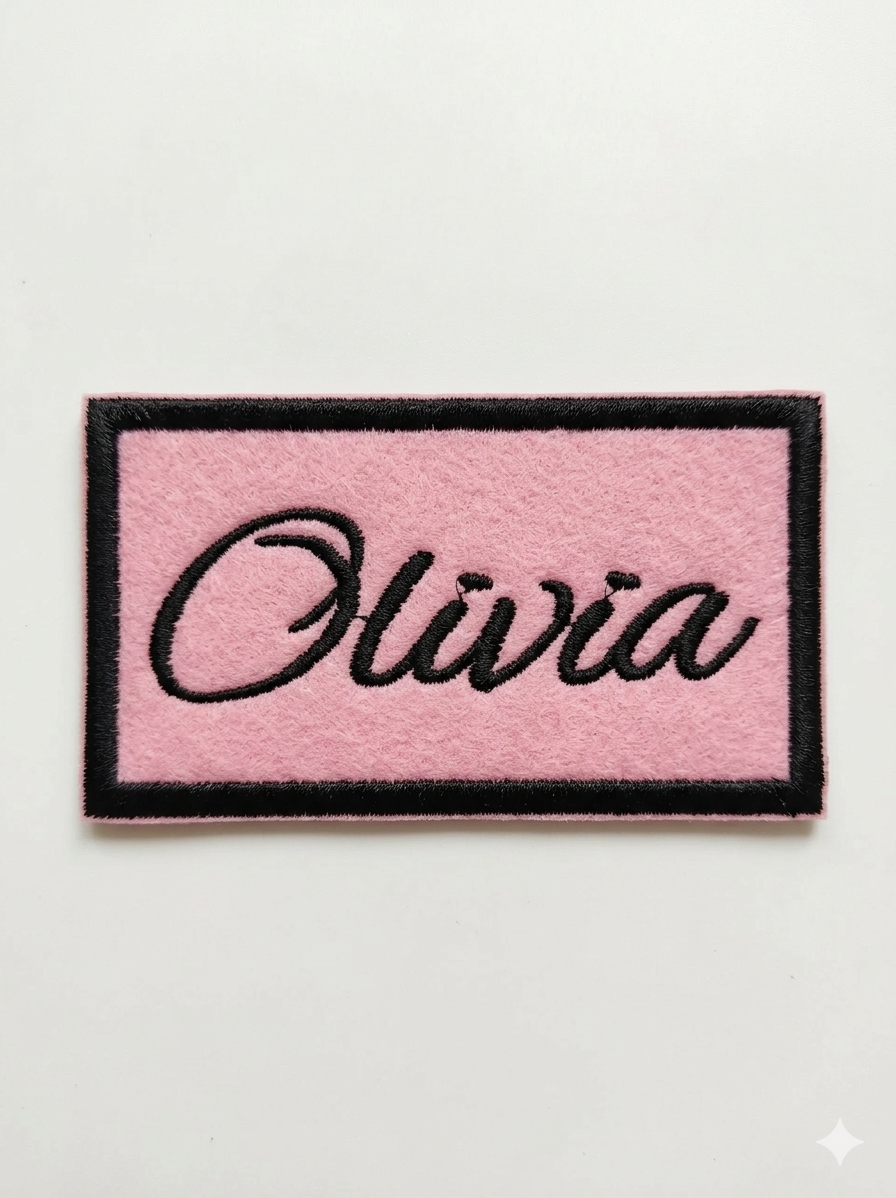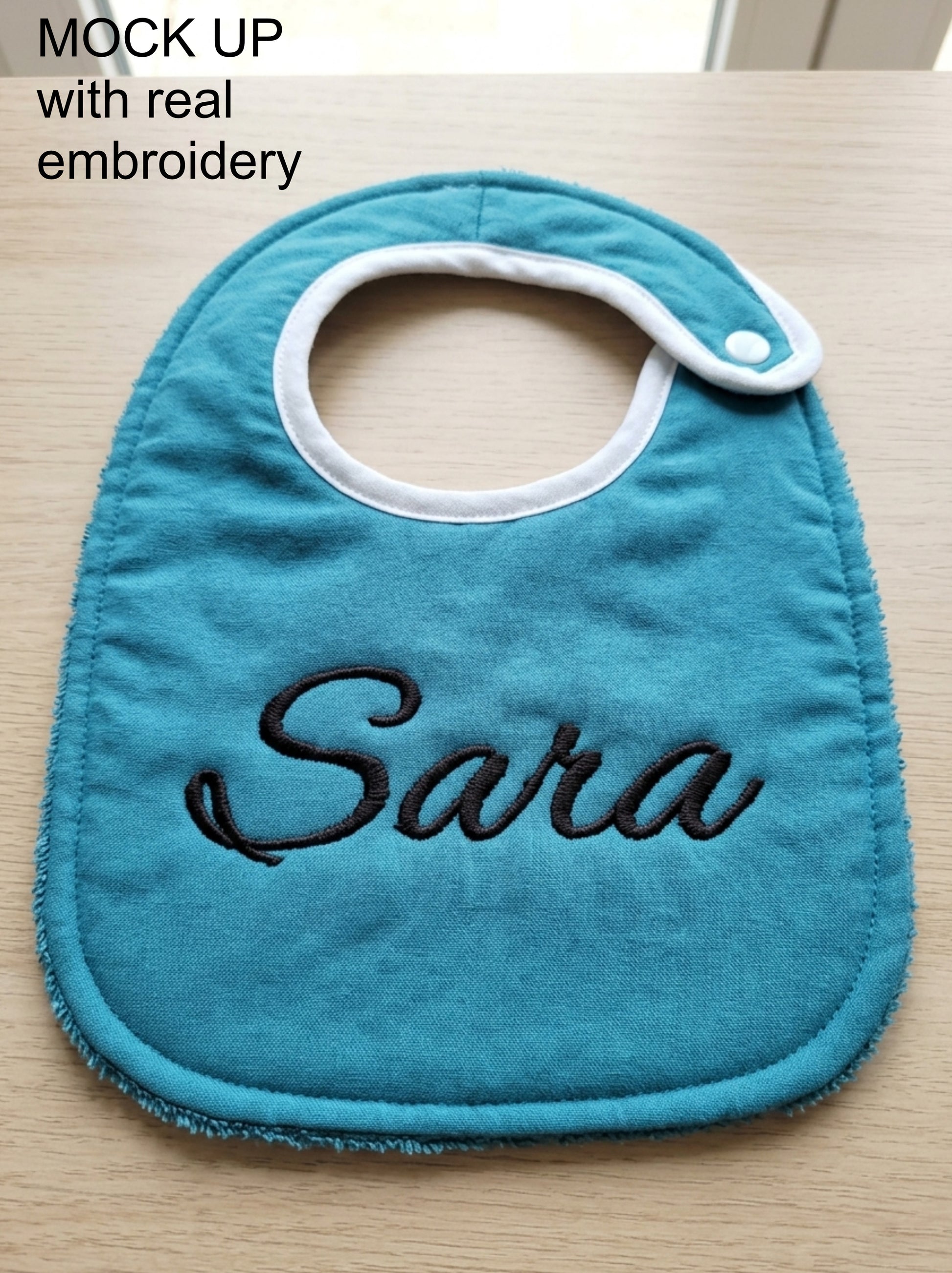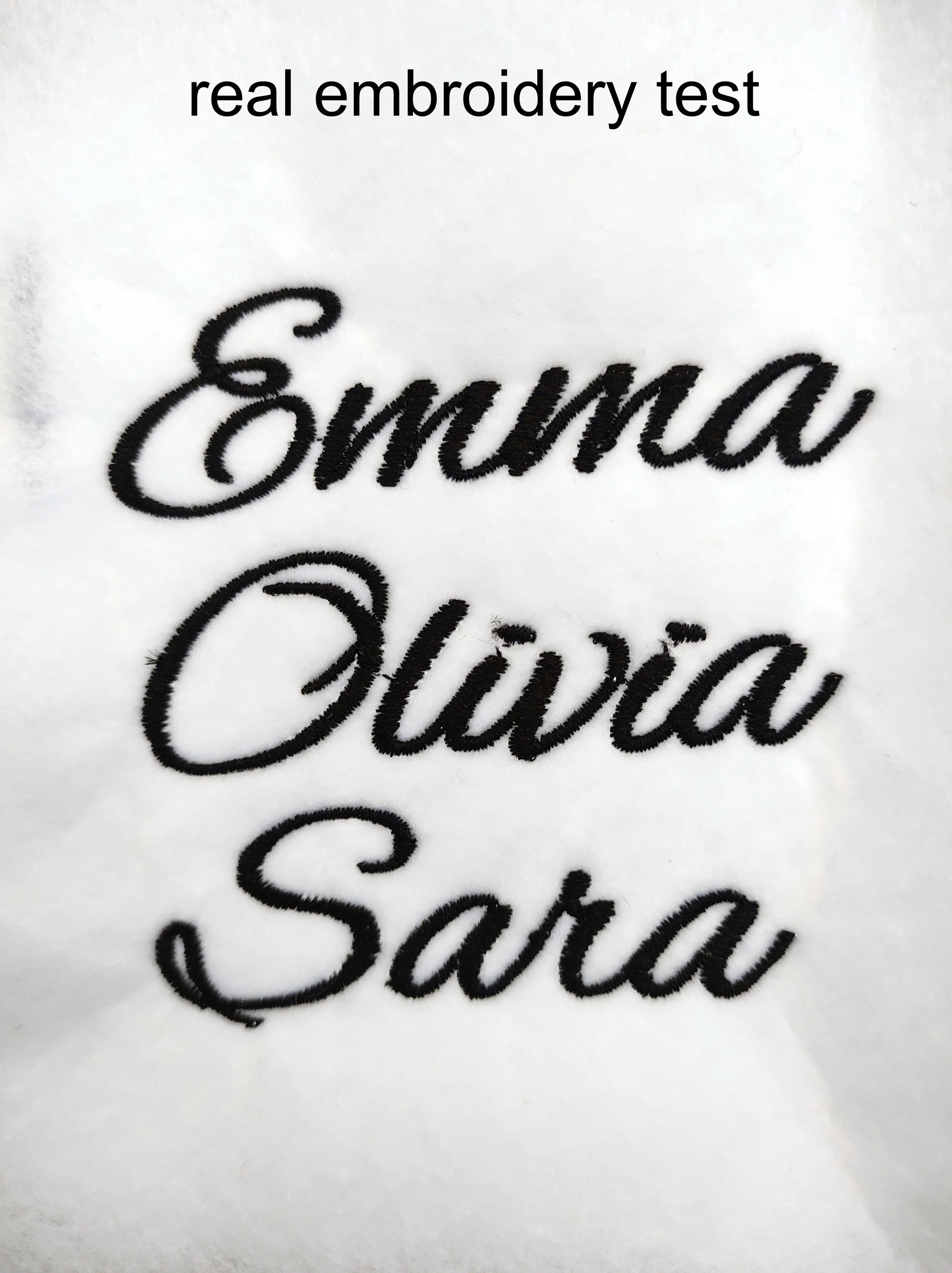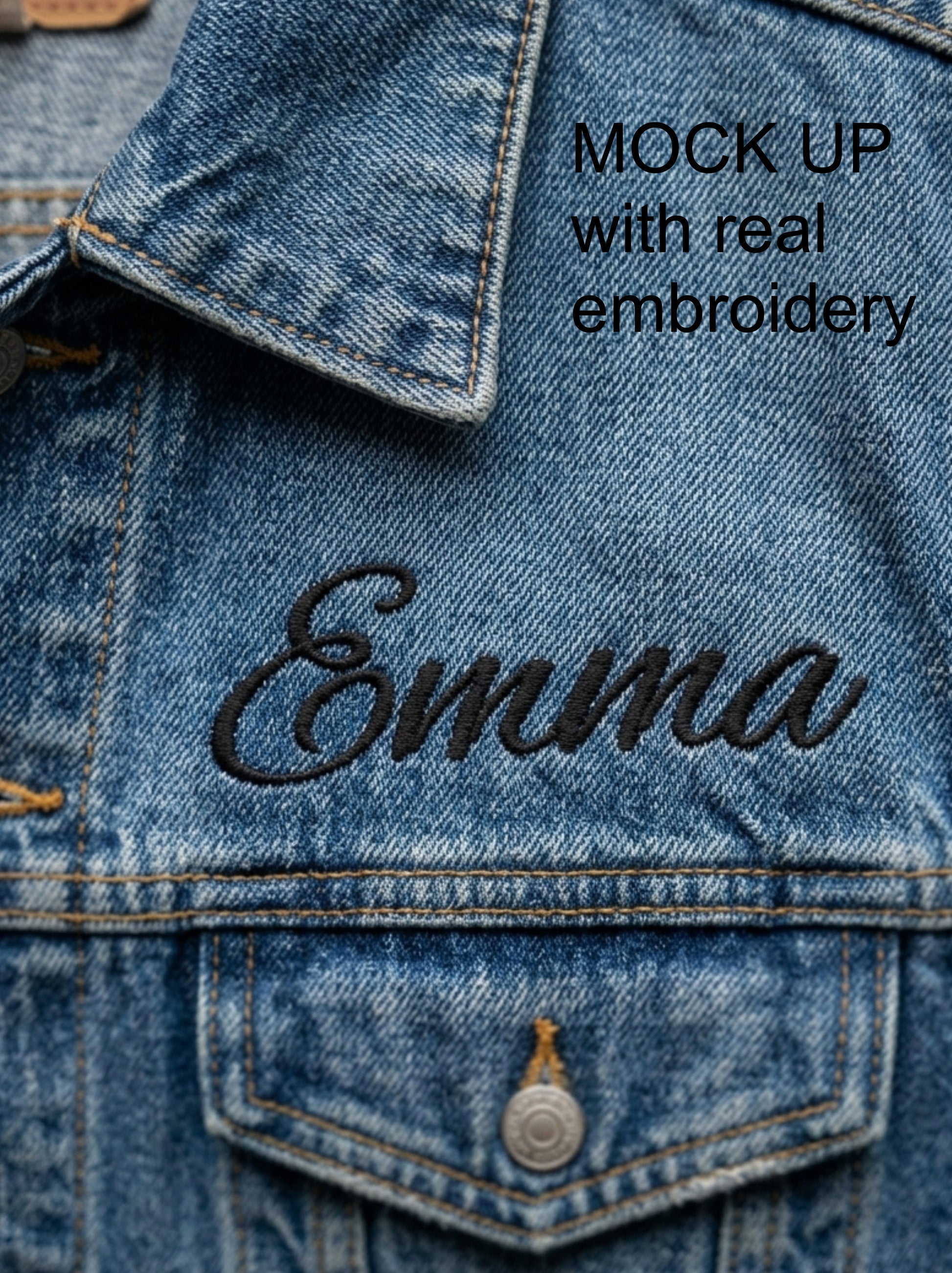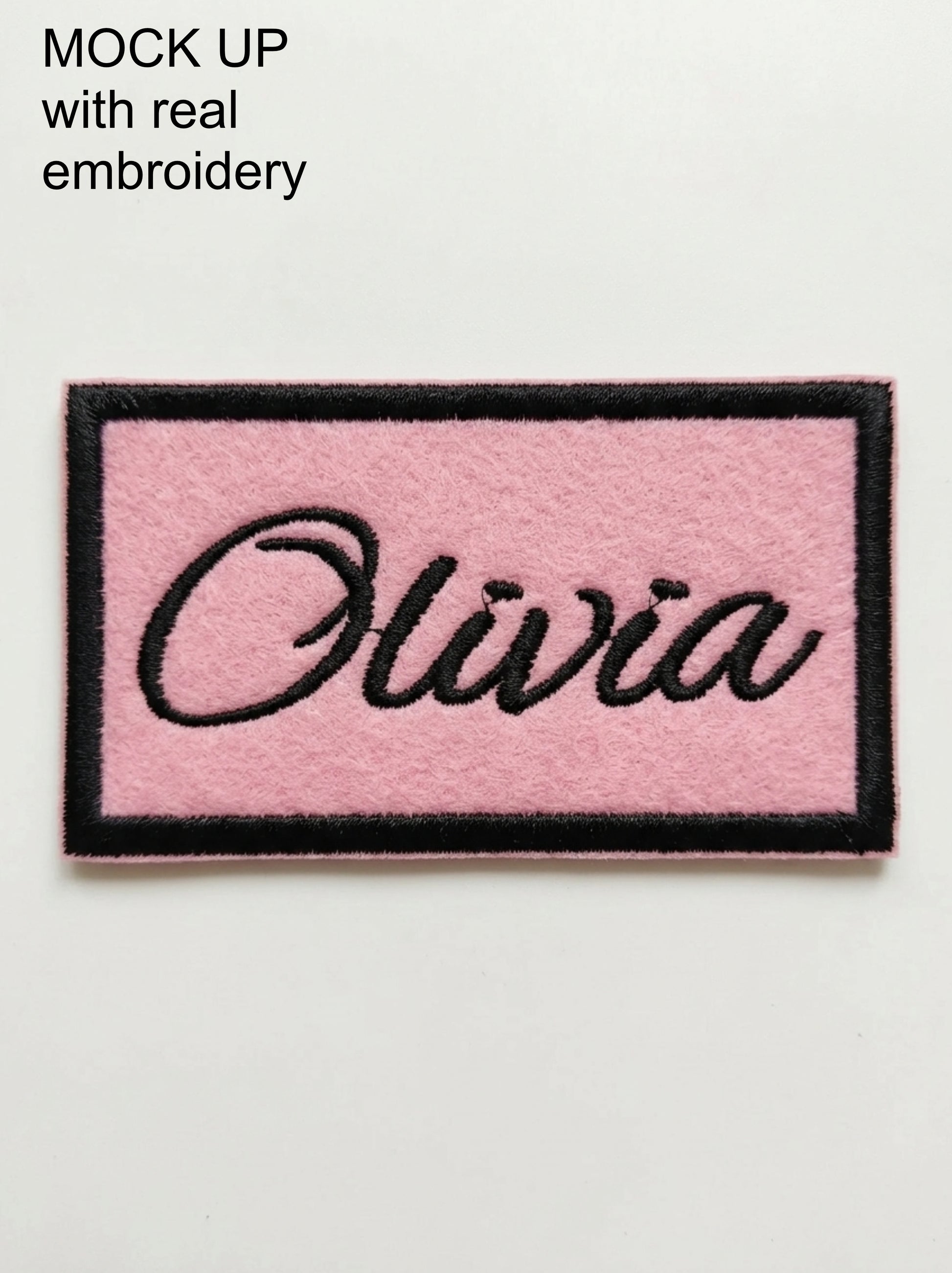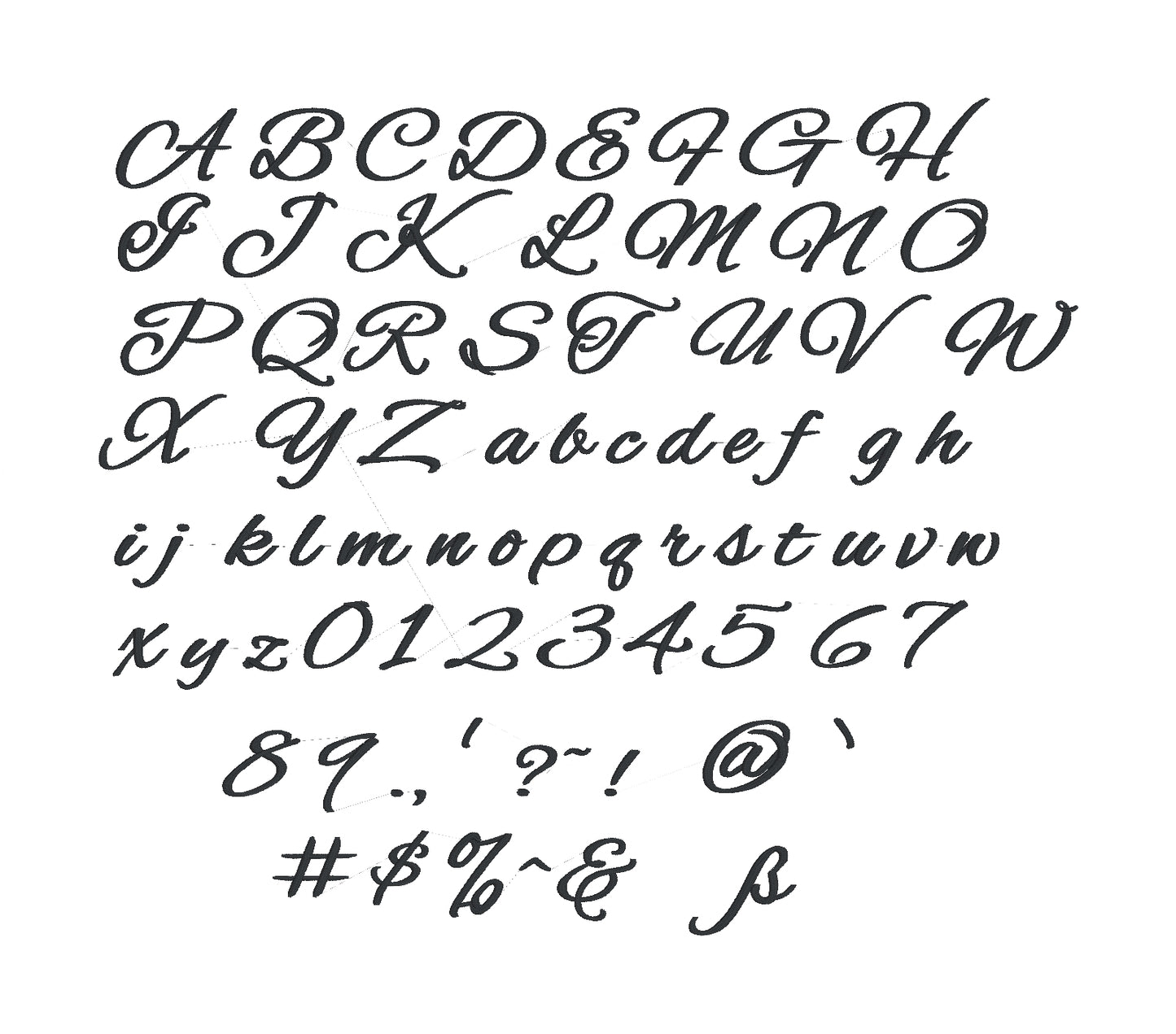
Wed Love Native Bx is a wedding embroidery font designed for digitizing custom projects. This satin stitch font offers a resizable from 1.25" to 5", giving you flexibility for everything from small details to bold statements. Perfect for personalizing apparel, accessories, and home décor items, Wed Love Native Bx delivers clean, professional lettering with smooth satin stitching. The font works well on various fabrics
What Native means?
Native font means it was created inside Embrilliance Stitch Artist and offers the ability to resize and change stitch type without losing quality. You can also add pull compensation, remove or add underlay, depending on the project.